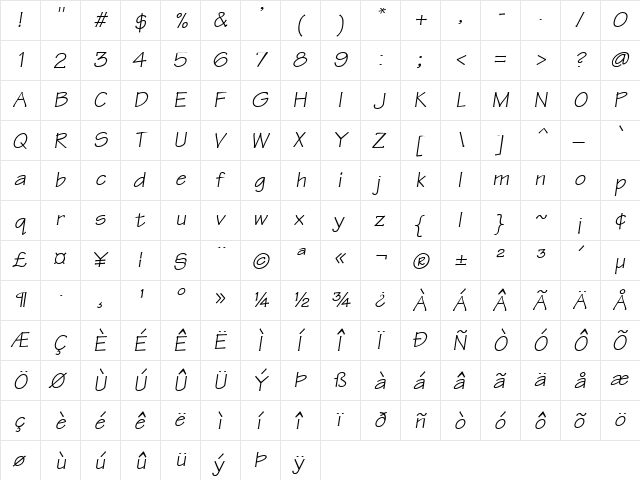
Technical Italic
Design Context for Technical Typeface
Technical channels digital-age aesthetics through its sharp, structured letterforms — ideal for brands that want to signal innovation. Its italic angle brings a sense of urgency and motion to the letterforms.